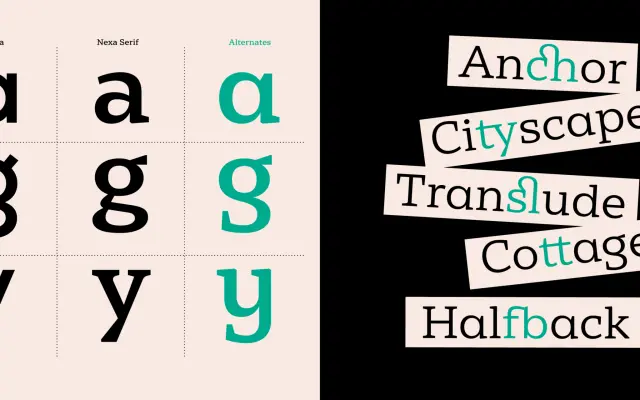
Nexa Serif
Fontfabric · Kiril Zlatkov, Ani Dimitrova, Ivelina Martinova · 2025
A geometric serif companion to Fontfabric's Nexa sans-serif, sharing its proportions and clean construction across eight weights with italics and variable font options.
Designed as a direct counterpart to the bestselling Nexa, this serif family preserves the sans-serif's letter proportions while introducing moderate contrast and refined details. Alternate forms of 'a', 'g' and 'y' echo Nexa's geometric skeleton, making the two families pair naturally. Eighteen styles span Thin through Black with matching italics, supported by Extended Latin and Cyrillic coverage, stylistic alternates and ligatures for both body text and display work.
Nexa Serif is explicitly designed as a geometric serif companion to the sans-serif Nexa, preserving geometric letter proportions and clean construction while introducing moderate contrast and serif details. This places it squarely in the geometric serif subcategory.